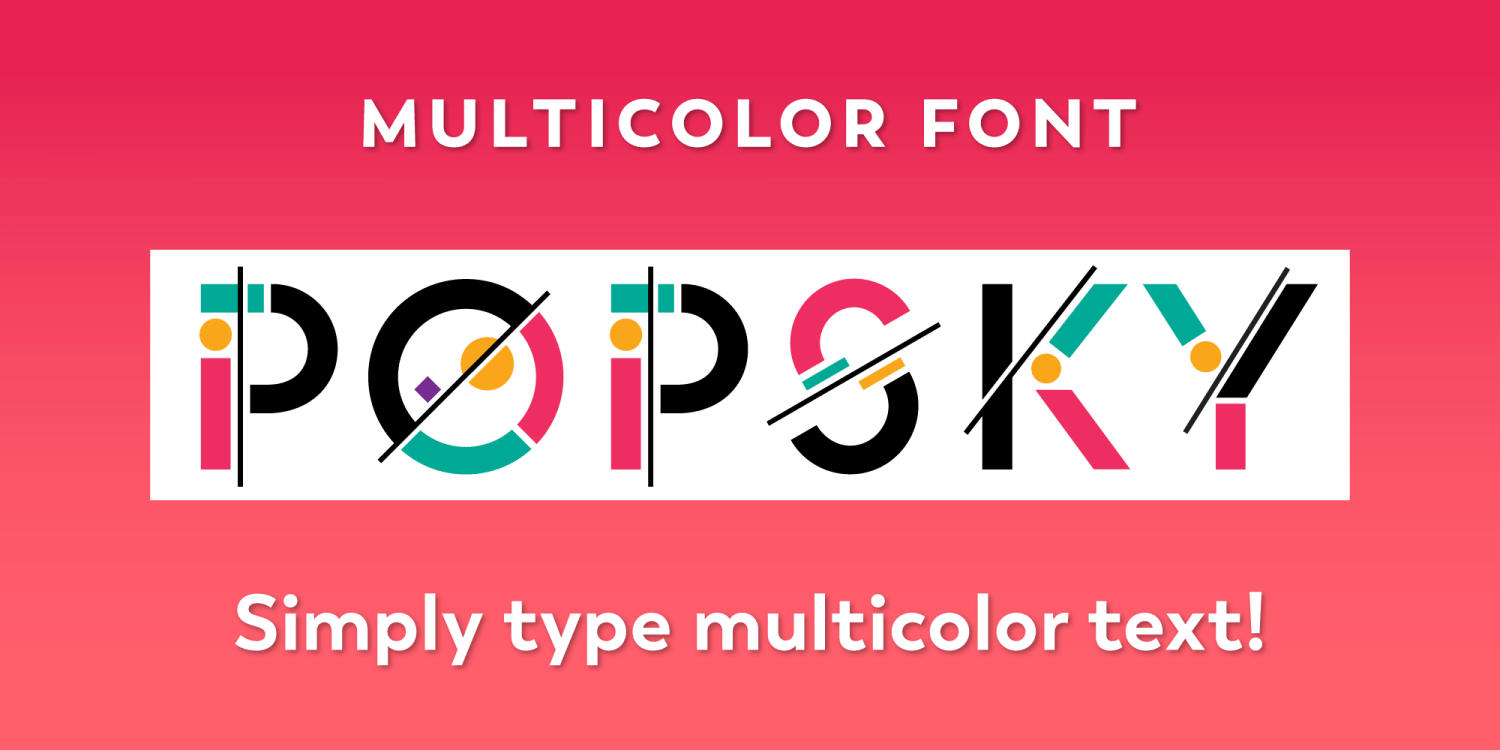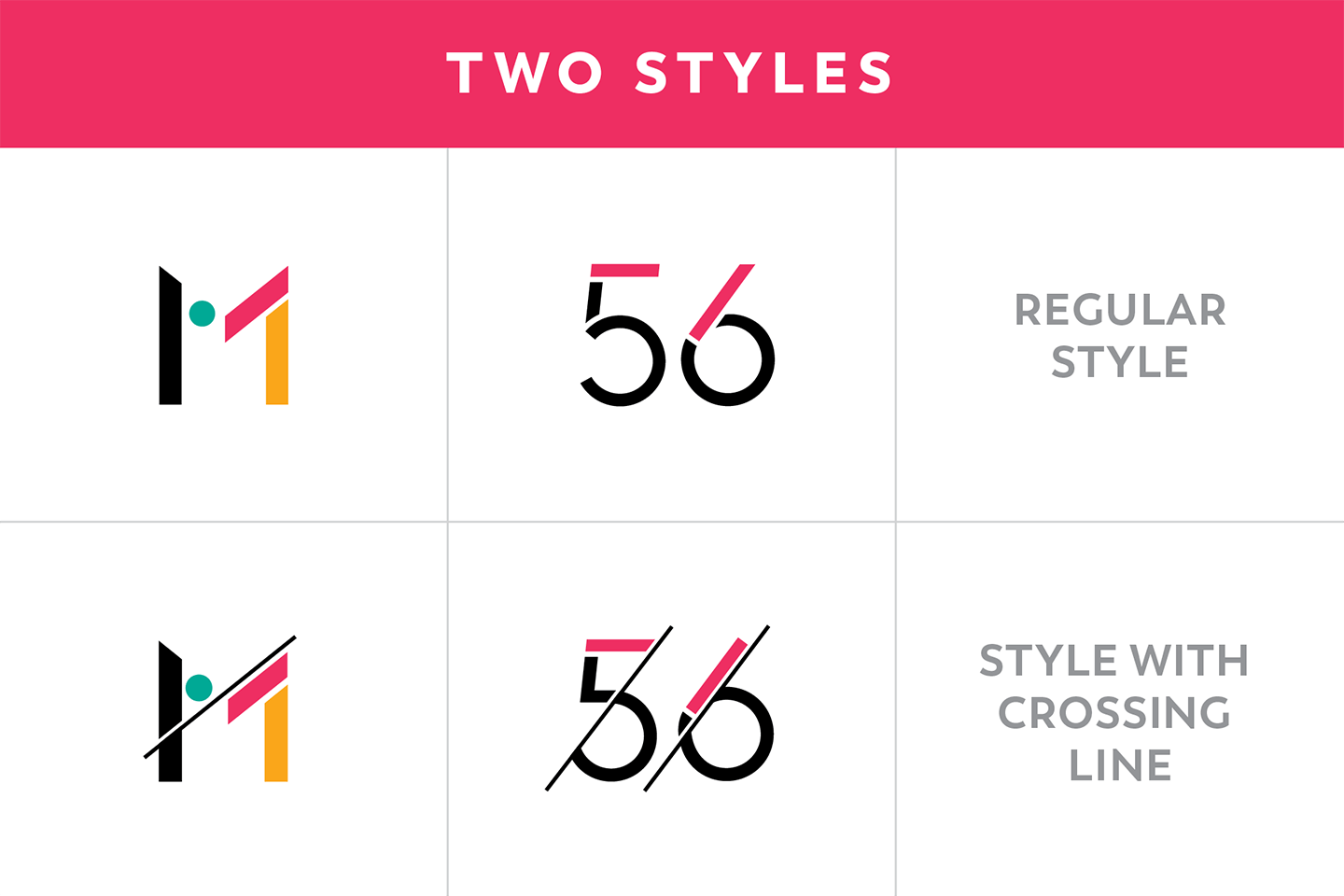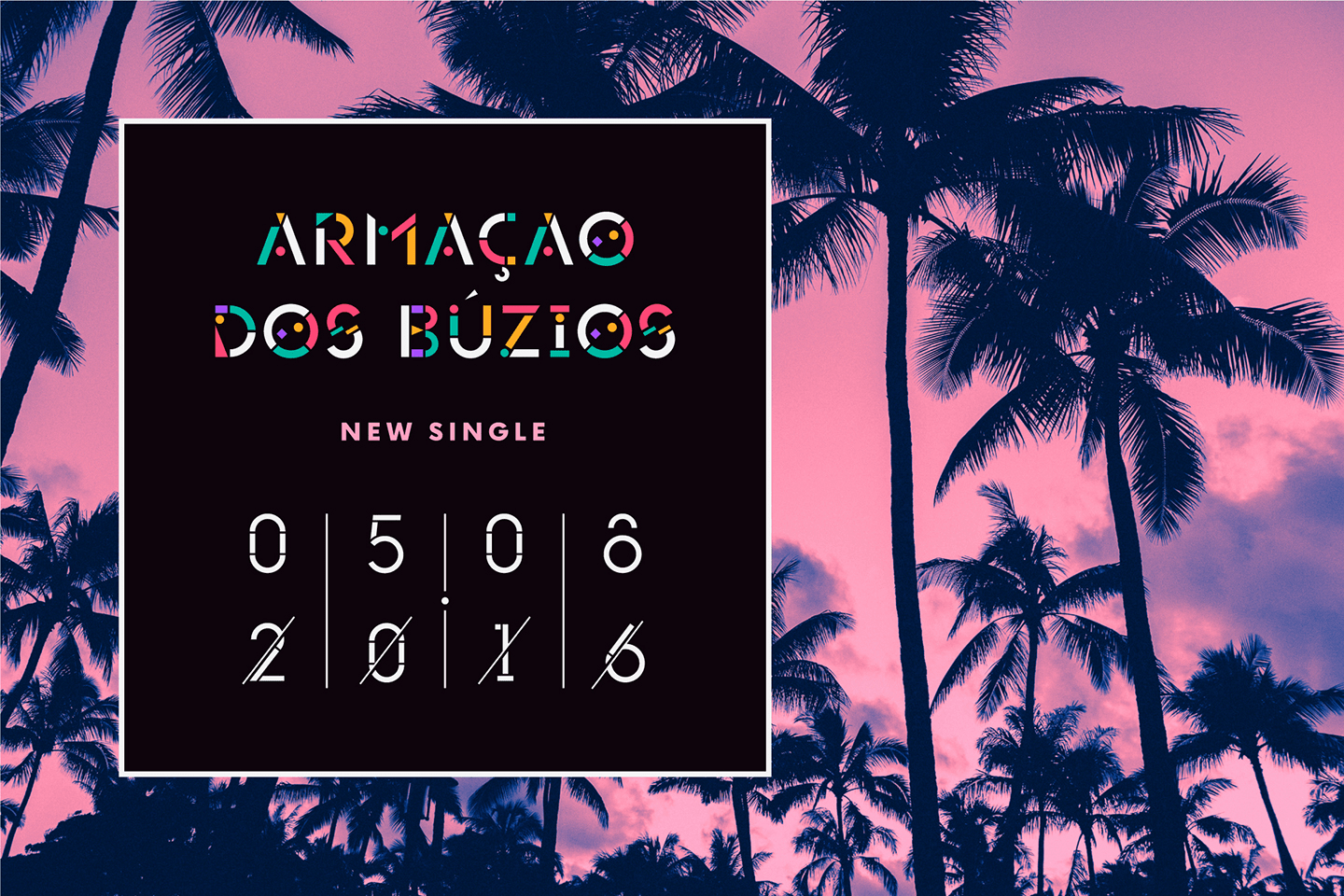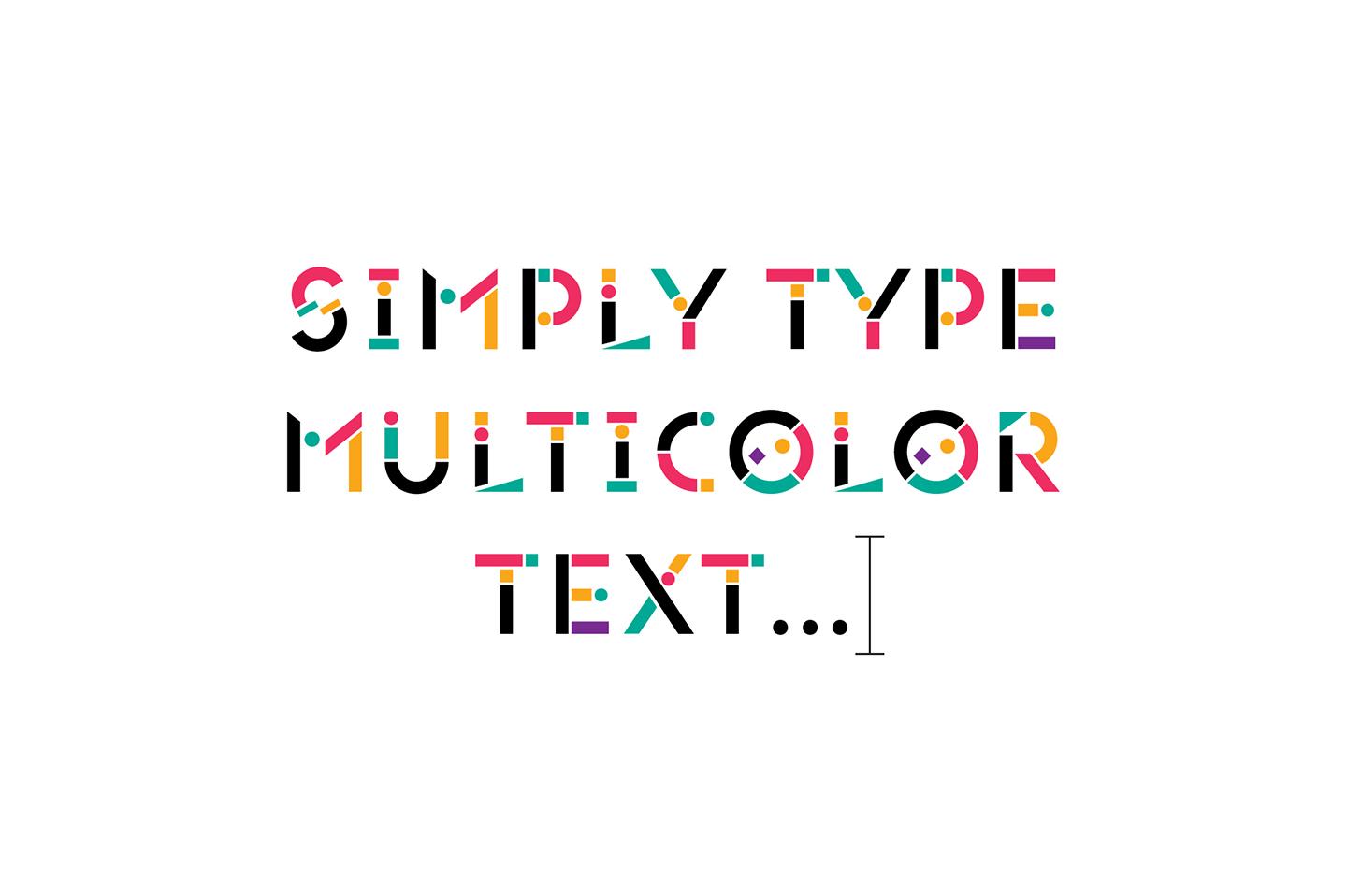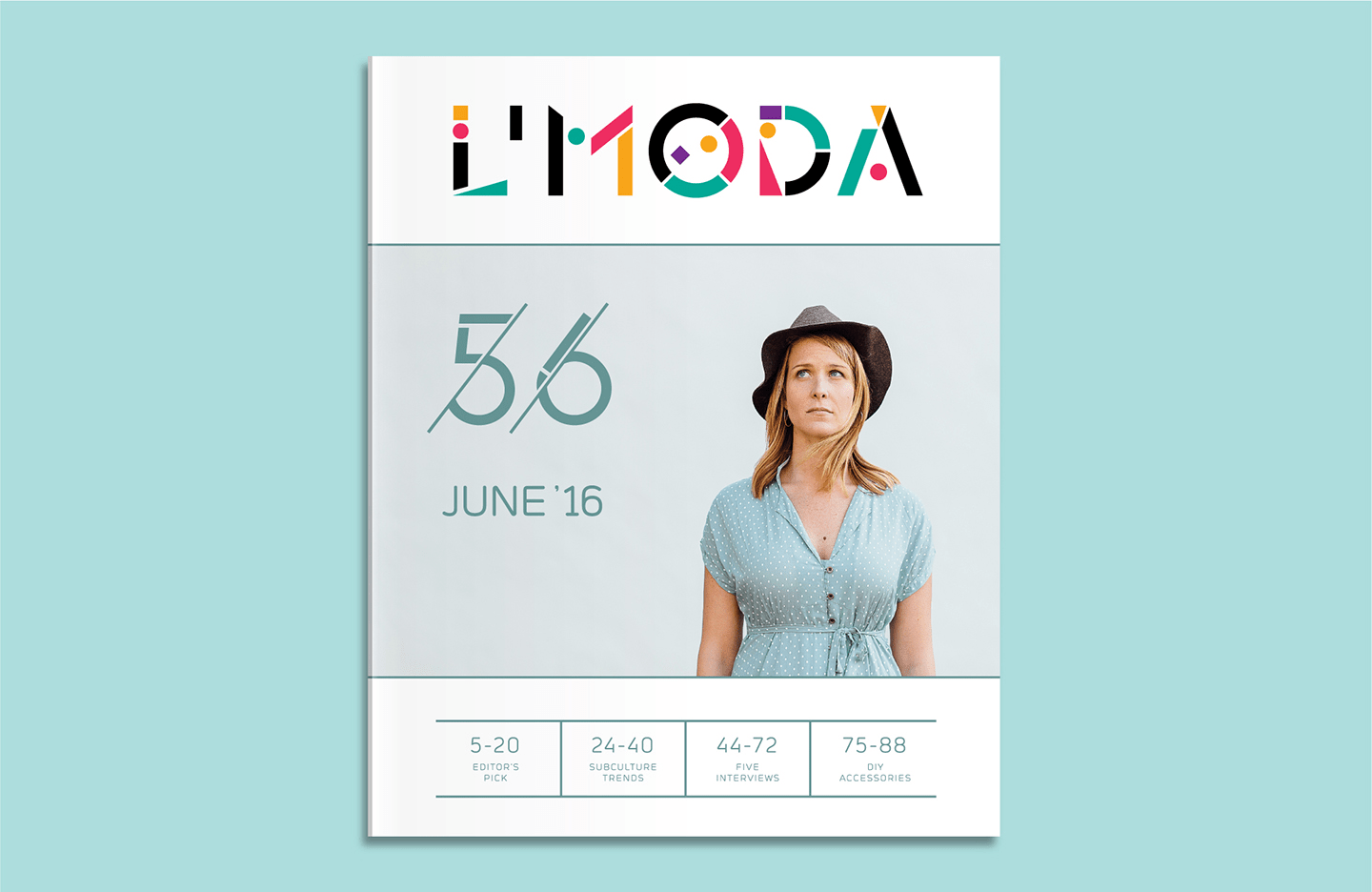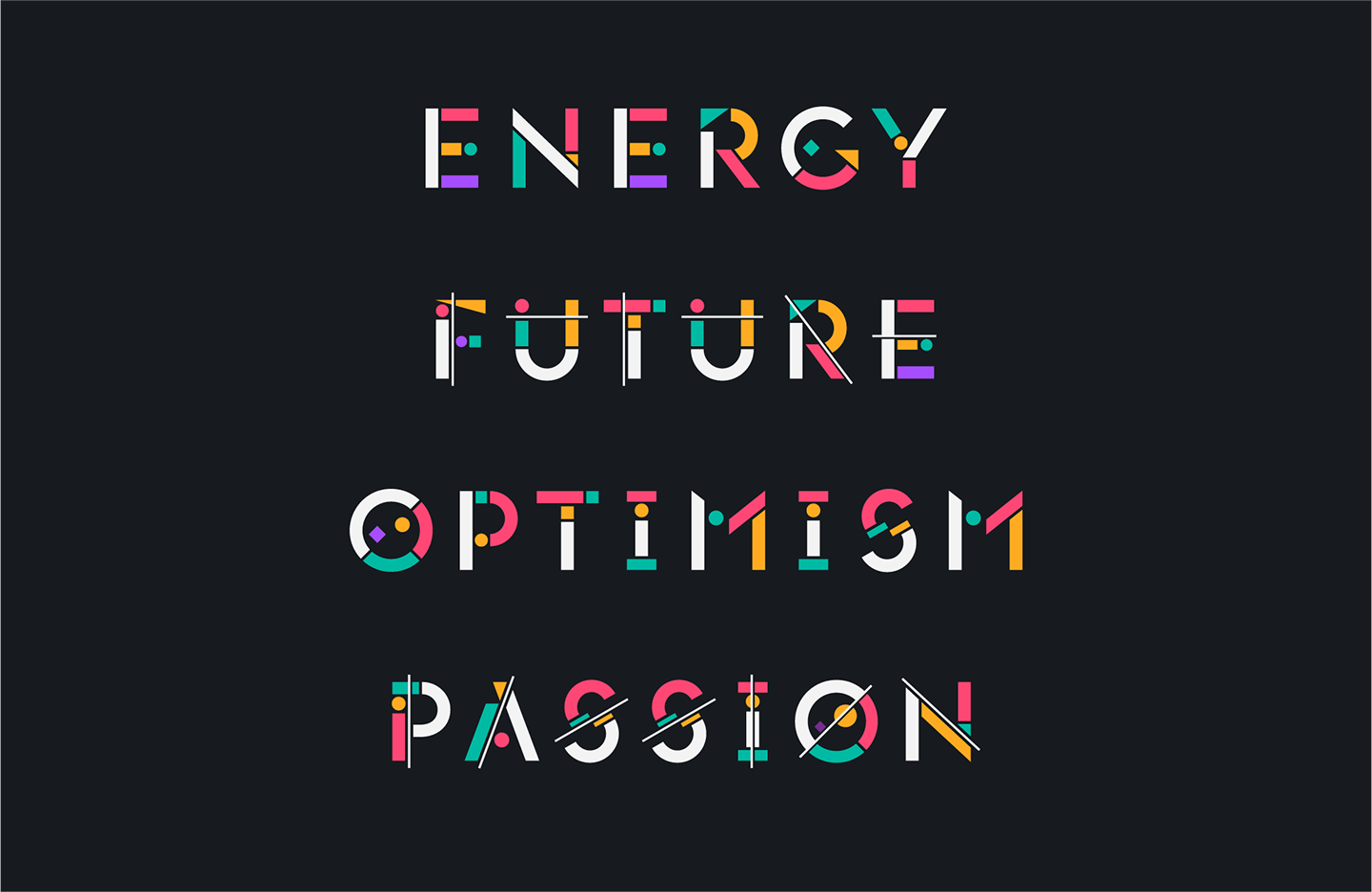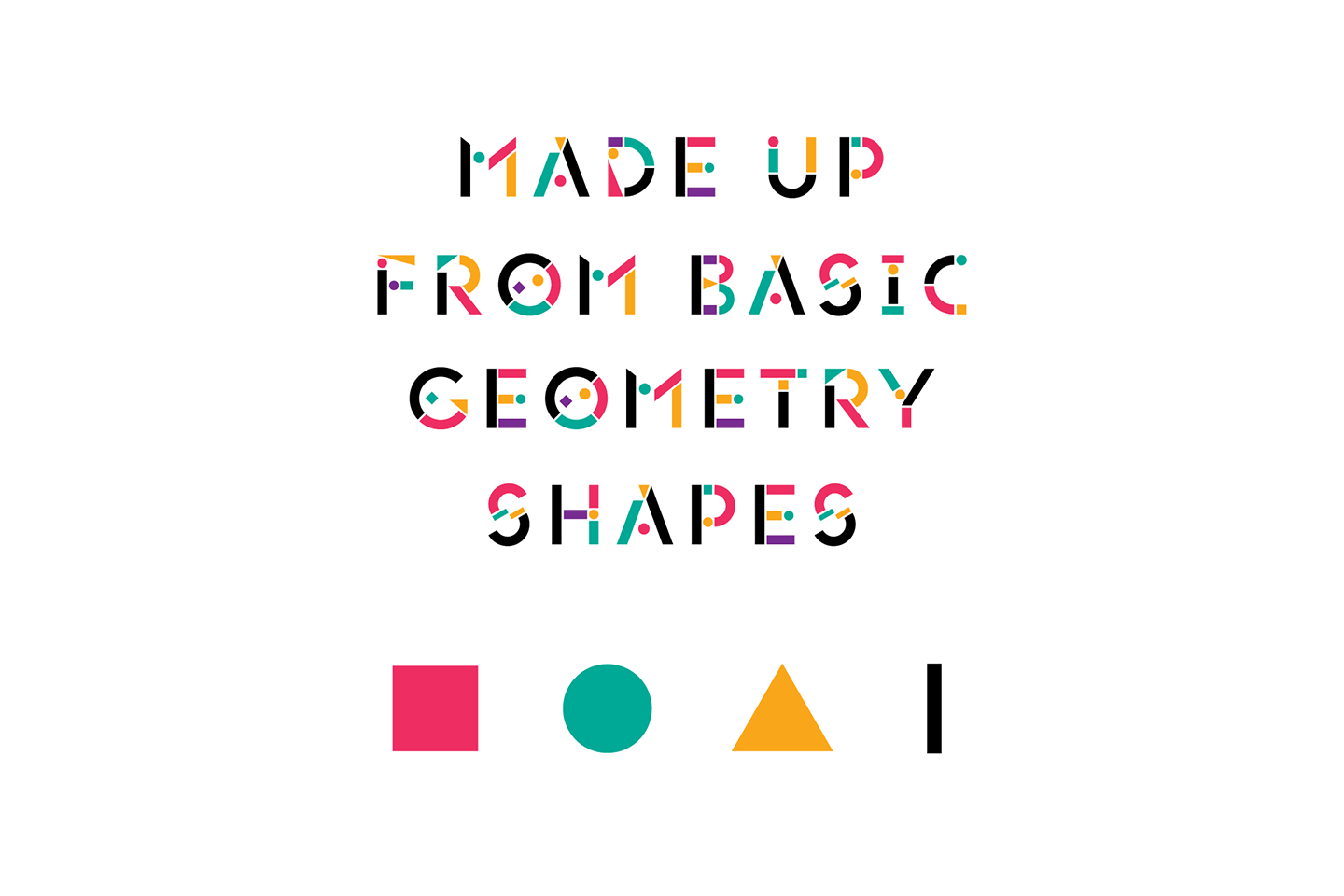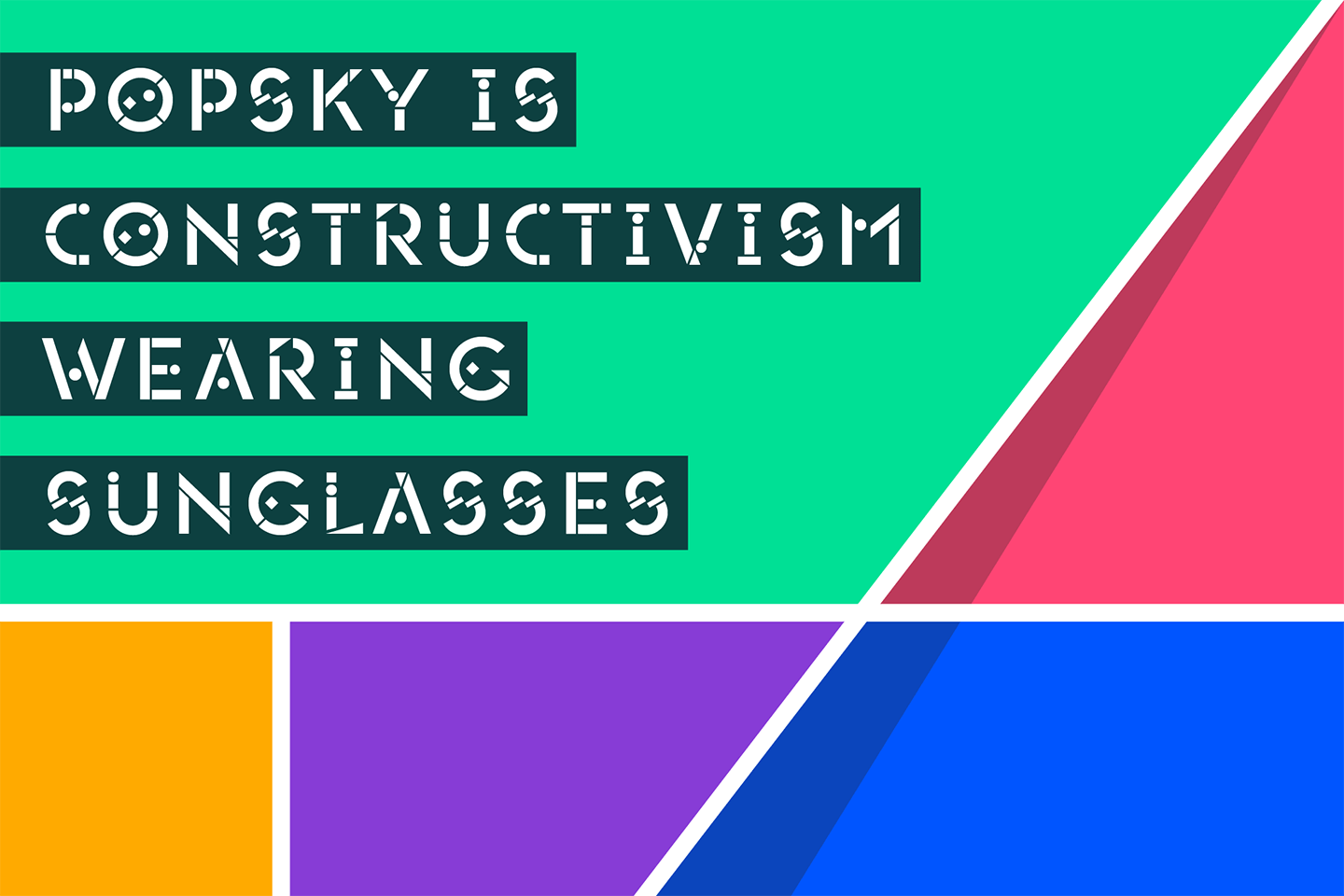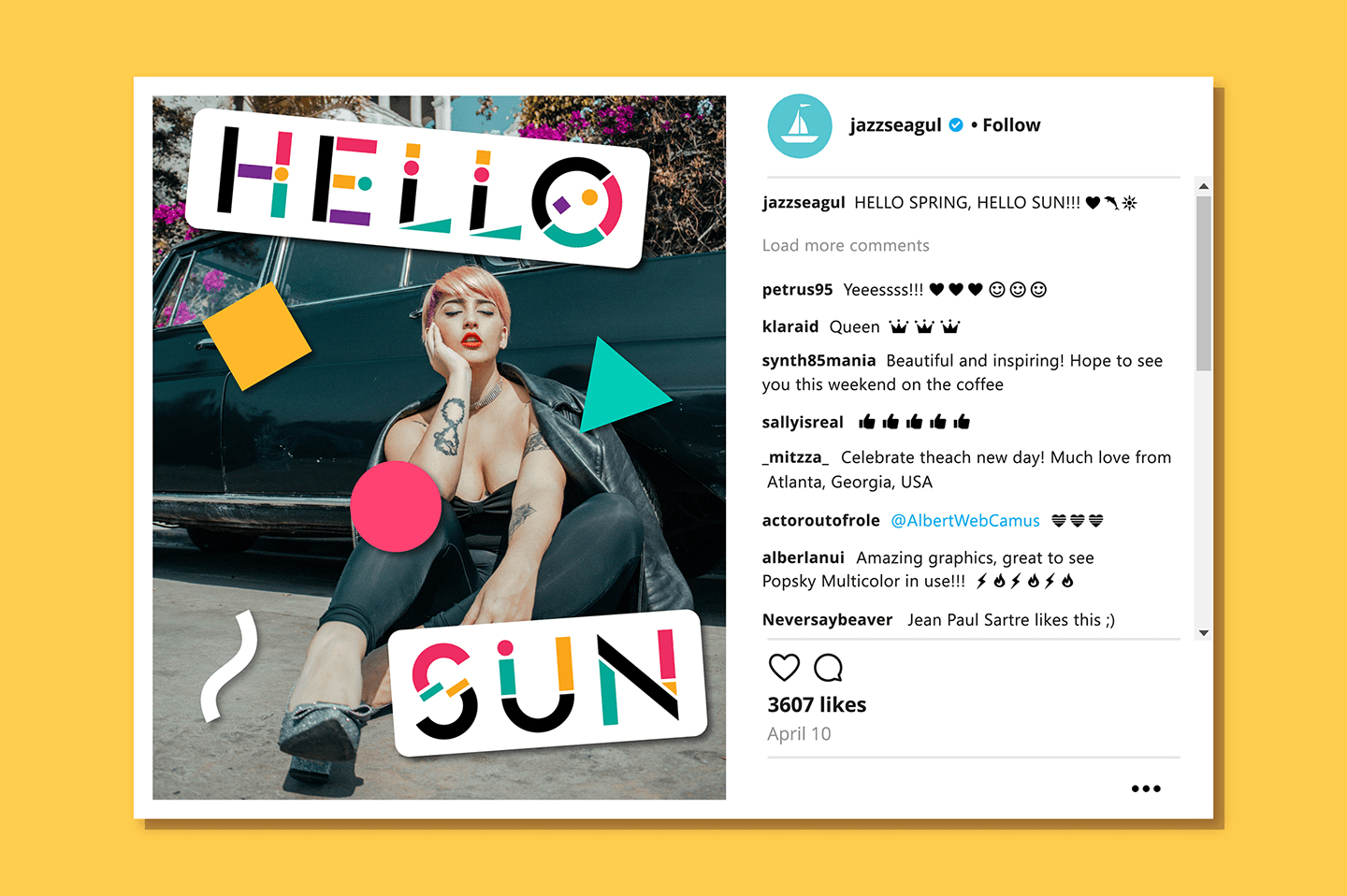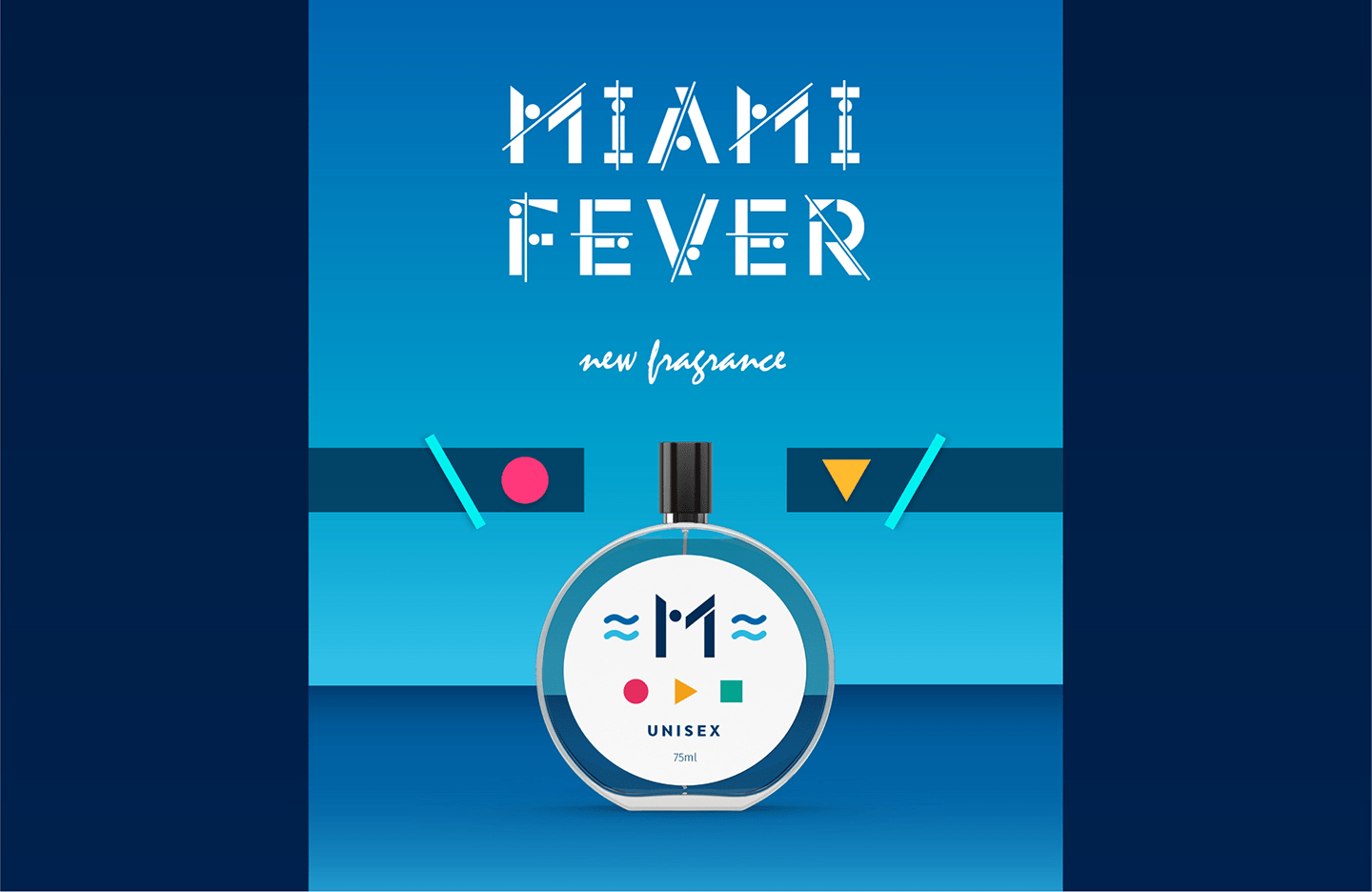
Popsky
Font Family by Nostalgic Dolphin Studio
POPSKY is an avant-garde multi-color font. Its design incorporates optimism and motivation that will instantly bring the attention of your clients and followers. Made solely out of basic geometry shapes, and using a pop-art color scheme it is "CONSTRUCTIVISM WEARING SUNGLASSES"! ;)
I am proud it is included in "The best commercial typefaces" list, curated by legendary Luc Devroye. Being the bestseller of our catalog, it is greatly accepted by the leading designers and typographers who commented it's "a breath of fresh air".
Popsky is an all-caps font. It has two stylistic sets (with/without crossing line), two number sets, punctuation, and accented characters.
TWO FONTS IN THE PACK:
• Multicolor font (type multicolor text)
• One-color font (type one-color text like with any other font on your system)